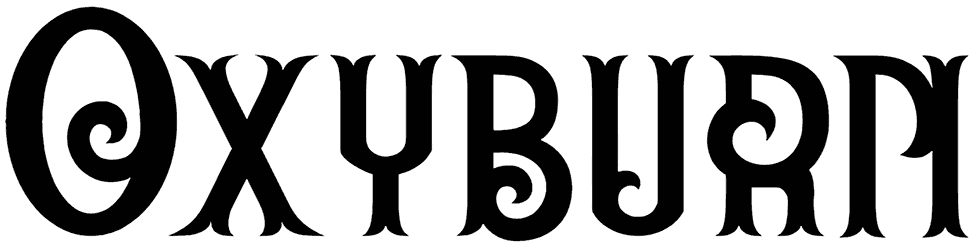
Oxyburn Font
Designed byIlhamtaro
With its old charm, Oxyburn font can take you back in time and capture the essence of the distinct personality of the classic era. This circus font has intertwined edges that can create a luxurious mood in the text and take the audience to European palaces and ancient churches.
One of the best things about Oxyburn is its versatility, allowing it to be used in advertising, branding, packaging, and signage despite the lack of lowercase letters.